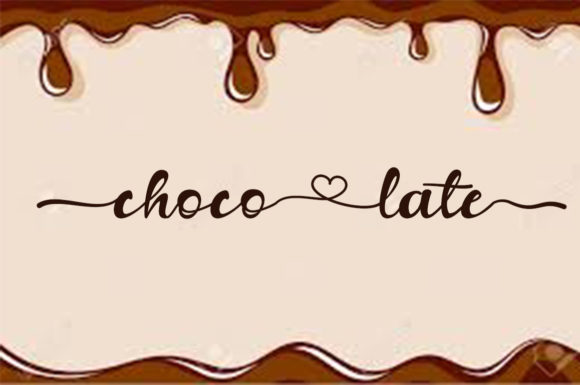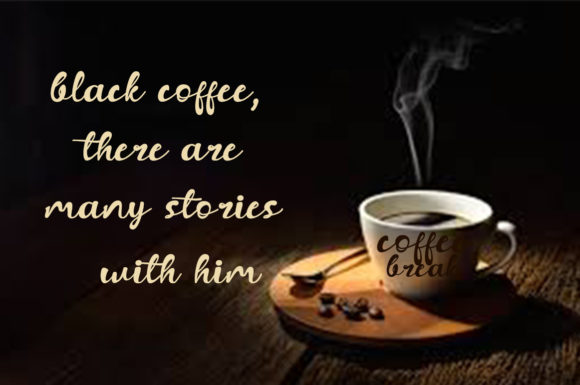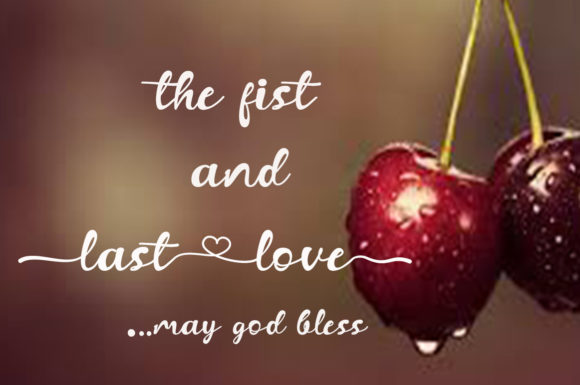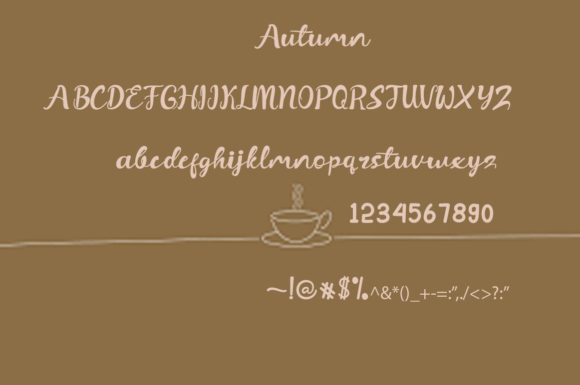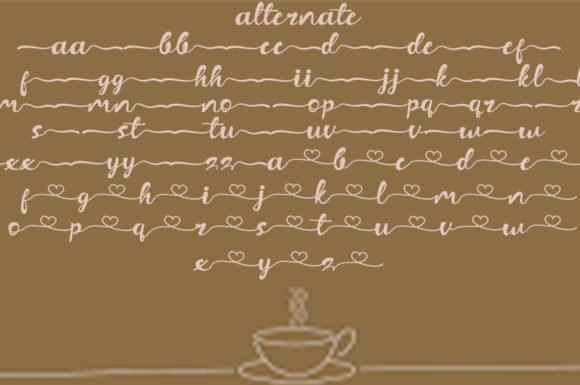
Embracing the Warmth of Autumn in Design
As the leaves change colors and the air grows crisp, I find myself inspired by the cozy atmosphere of autumn. It’s the perfect time to cozy up with a cup of hot coffee, surrounded by half-finished projects and a to-do list that’s a mile long. But amidst the chaos, I often find myself daydreaming about the perfect font to capture the essence of this magical season.
Enter the Autumn Font – a beautiful, elegant script that’s perfect for adding a touch of warmth and sophistication to any design. From wedding invitations to thank you cards, quotes to logos, this font is the perfect addition to any project that needs a customized touch. And with its PUA encoding, you can access all of the glyphs and swashes with ease, making it a valuable tool for designers looking to add a little extra magic to their work.
Autumn Font Key Features
- Size: The font family includes multiple weights and styles, ranging from 100 to 900, providing a wide range of typographic options for designers.
- Unique Characteristics: This font features a distinctive, hand-crafted feel with subtle texture and organic details, evoking the warmth and coziness of autumnal landscapes.
- Language Support: Autumn Font includes comprehensive language support for Latin-based languages, as well as some Cyrillic and Greek characters, making it a versatile choice for global design projects.
Designer Review: Autumn Font
Autumn Font is a charming, hand-drawn typeface that’s perfect for adding a touch of warmth and coziness to your designs. ✨ I love how the font’s organic feel and subtle imperfections evoke a sense of authenticity and human touch.
Some of the things that really work well for Autumn Font include:
- Its unique, hand-drawn aesthetic that adds a personal touch to designs.
- Its versatility in both digital and print formats.
- Its ability to convey a sense of warmth and approachability.
- ⚠️ The font may not be the best choice for highly formal or corporate designs, as its hand-drawn feel may come across as too casual.
- ⚠️ Some characters may not be as well-formed as others, which could affect readability in certain contexts.
- ⚠️ The font may require additional styling or editing to achieve the desired look and feel.
Overall, I think Autumn Font is a great choice for designers looking to add a touch of personality and warmth to their projects. With a little creativity and experimentation, this font can be a real showstopper. ✨
Tips for Getting the Most Out of Autumn Font
Use the Autumn font in designs that evoke a sense of warmth and coziness, such as autumn-themed invitations, seasonal marketing materials, or cozy home decor designs.
The Autumn font is ideal for use in:
- Autumn-themed designs
- Seasonal marketing materials
- Cosy home decor designs
- Invitations and event materials
Alternatives to Autumn Font
Great Vibes Font is a beautiful, handwritten font perfect for creating a warm and inviting atmosphere. It’s ideal for use in titles, headings, and quotes where you want to add a touch of elegance and sophistication. Great Vibes Font is similar to Autumn Font in its handwritten style, but it has a more modern and sleek feel to it.
Alex Brush Font is a beautiful, elegant font that’s perfect for use in titles, headings, and body text where you want to add a touch of sophistication and luxury. It’s similar to Autumn Font in its handwritten style, but it has a more refined and polished feel to it. Alex Brush Font is ideal for use in high-end branding, advertising, and editorial design.